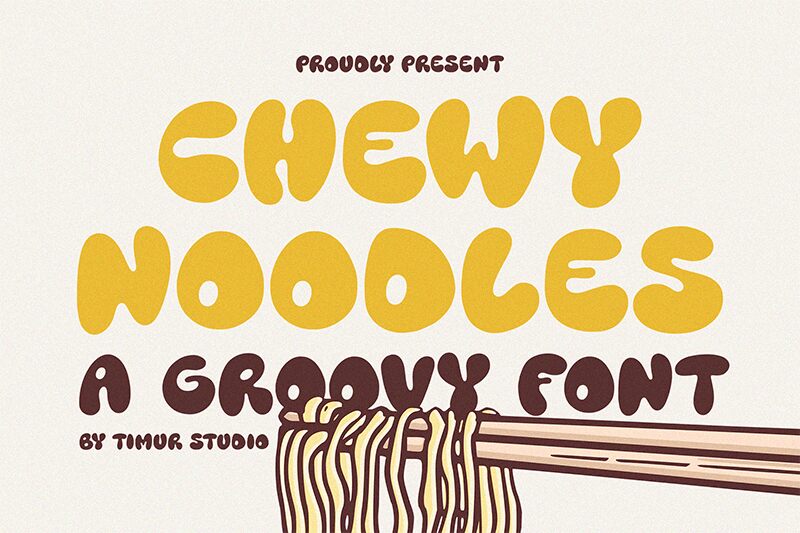
Chewy Noodles font is a groovy typeface by Timur Type combining a vintage-inspired style with a modern playful touch. With organic forms and a soft appearance, Chewy Noodles carries a friendly and whimsical tone to any design project. This font is the perfect match for nostalgic but contemporary uses, with a curious base that captures both the visual senses and longevity of use!
This font can be picked and selected for logos and branding designs, lovely package designs, or intriguing book covers. Its web element possibilities include headers, highlighted texts, or even minimal but stunning landing pages. Its ability to elevate audiences into a more positive thinking pattern helps this font shine in children’s book covers.
Chewy Noodles is a groovy font that serves as a retro and vibrant choice for your design projects. With its funky and playful letterforms, this font captures the essence of the groovy era. The bold and exaggerated strokes impart a lively and energetic aesthetic, making Chewy Noodles perfect for adding a retro and nostalgic touch to your branding materials, posters, and album covers. Whether you're aiming for a vintage and psychedelic look or a fun and lighthearted vibe, the Chewy Noodles font offers versatility and charm. Embrace the groovy energy of Chewy Noodles and transport your designs back to the colorful and vibrant era of the past.